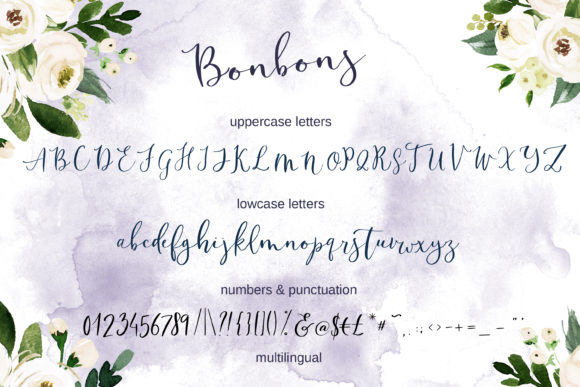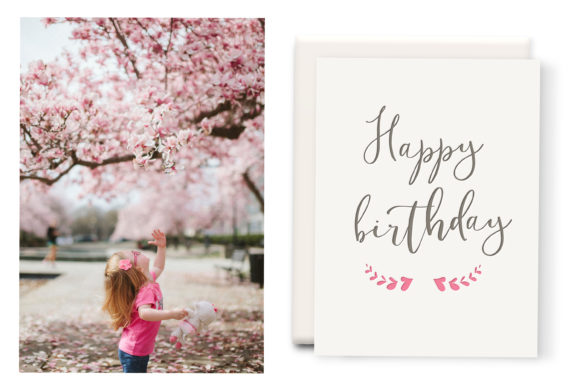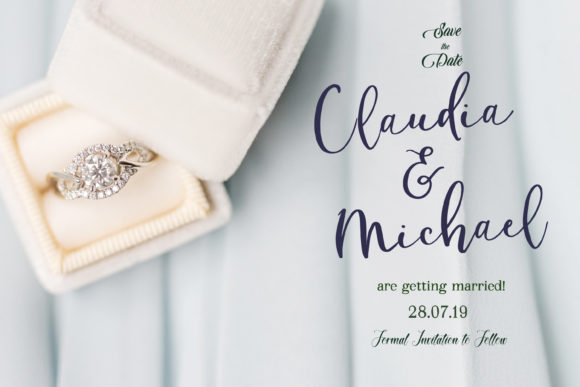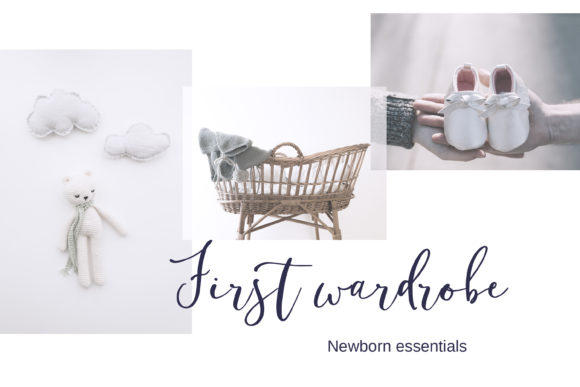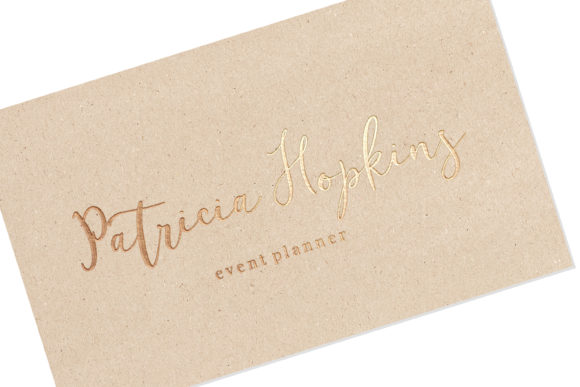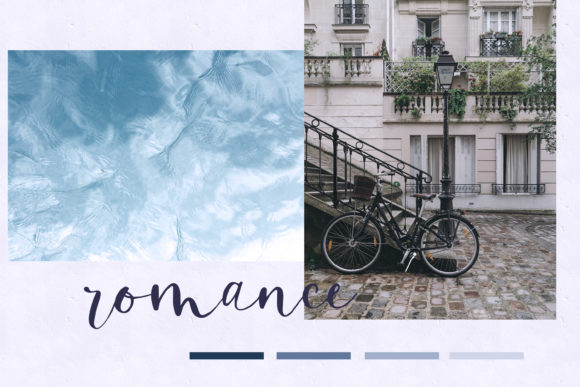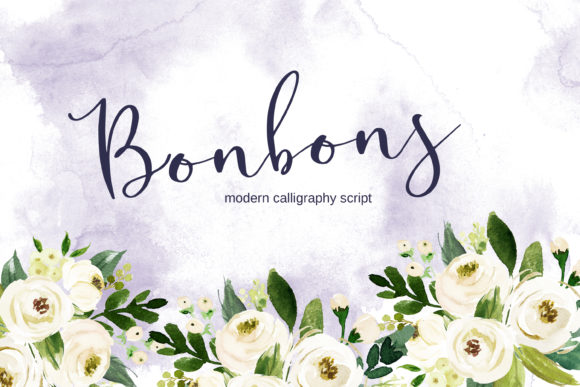
Introducing Bonbons Font: The Sweet and Fun Script that will Steal Your Heart
Are you tired of using the same old fonts for your design projects? Look no further! Bonbons Font is here to add a touch of sweetness and fun to your creations. This unique script font is sure to capture your heart with its original style and playful charm.
The Story Behind Bonbons Font
Bonbons Font is a carefully crafted script font that is designed to evoke the feeling of nostalgia and whimsy. Its creator, [Designer’s Name], was inspired by the classic French bonbons – small, delicate candies that are as delightful as they are delicious. With Bonbons Font, you can add a dash of French flair to your designs and make them stand out from the crowd.
What Makes Bonbons Font So Special?
So, what sets Bonbons Font apart from other script fonts out there? Here are just a few of its unique features:
- Unique Letterforms: Bonbons Font boasts a distinctive lettering style that is both elegant and playful. Each letter is carefully designed to be visually appealing and easy to read.
- Hand-Drawn: Bonbons Font is a hand-drawn font, which gives it a personal and organic feel. The imperfections and quirks of hand-drawn lettering add to its charm and character.
- Versatile: Whether you’re designing a wedding invitation, a craft project, or a social media graphic, Bonbons Font is the perfect choice. Its versatility makes it suitable for a wide range of applications.
How to Use Bonbons Font in Your Designs
Bonbons Font is incredibly easy to use, even for those who are new to design. Here are some tips to get you started:
- Pair it with Other Fonts: Bonbons Font pairs beautifully with other fonts, such as sans-serif fonts like Arial or Helvetica. Experiment with different combinations to find the perfect look for your design.
- Use it for Headings: Bonbons Font is perfect for headings and titles, where its playful and whimsical style can really shine.
- Add some Color: Bonbons Font looks great in a variety of colors, from bright and bold to soft and pastel. Experiment with different colors to find the perfect match for your design.
Bonbons Font for Crafters and DIY Enthusiasts
If you’re a crafter or DIY enthusiast, you’ll love Bonbons Font for all your project needs. Here are some ideas to get you started:
- Handmade Cards: Add a personal touch to your handmade cards with Bonbons Font. Its playful style is perfect for special occasions like birthdays and holidays.
- DIY Signs: Create eye-catching signs for your home or business with Bonbons Font. Its unique style is sure to grab attention and add a touch of personality to your space.
- Custom Gift Tags: Make your gifts stand out with custom gift tags featuring Bonbons Font. Its sweet and playful style is perfect for special occasions like weddings and baby showers.
In conclusion, Bonbons Font is a sweet and fun script font that is sure to capture your heart with its unique style. Whether you’re a designer, crafter, or DIY enthusiast, Bonbons Font is the perfect choice for adding a touch of personality and whimsy to your creations. So why wait? Fall in love with Bonbons Font today and take your designs to the next level!
Bonbons Font is the perfect addition to your font collection, and it’s sure to become a favorite among designers and crafters alike. So go ahead, indulge in this sweet treat, and add a dash of fun and personality to your designs!